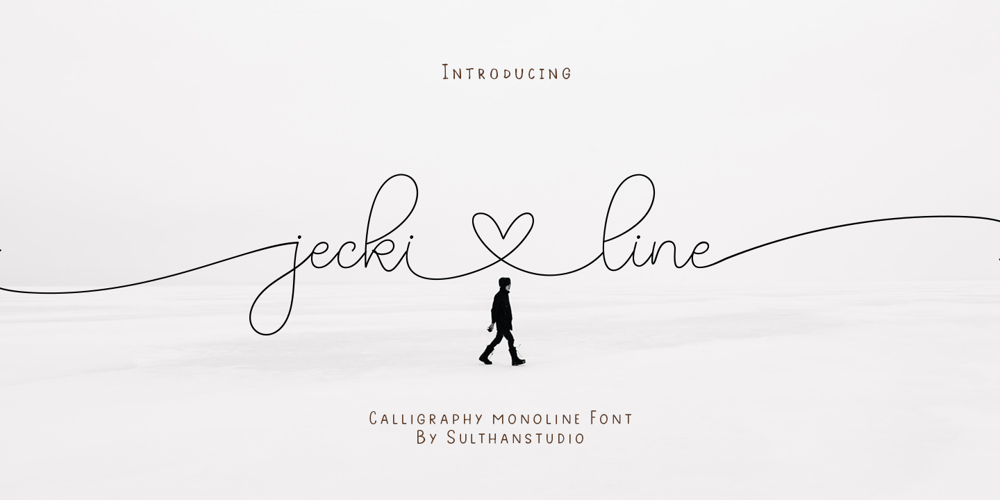
Jecki line Font Family was designed by Nasrullah and published by Sulthan Studio. Jecki line contains 1 styles and family package options. Calligraphy fonts with single line or also with sketch style are very charming plus long swash and cute heart stitches make it look simple and extraordinaryThis font is equipped with upper and lower case letters, numbers, punctuation and also language support has also been coded PUAThank You